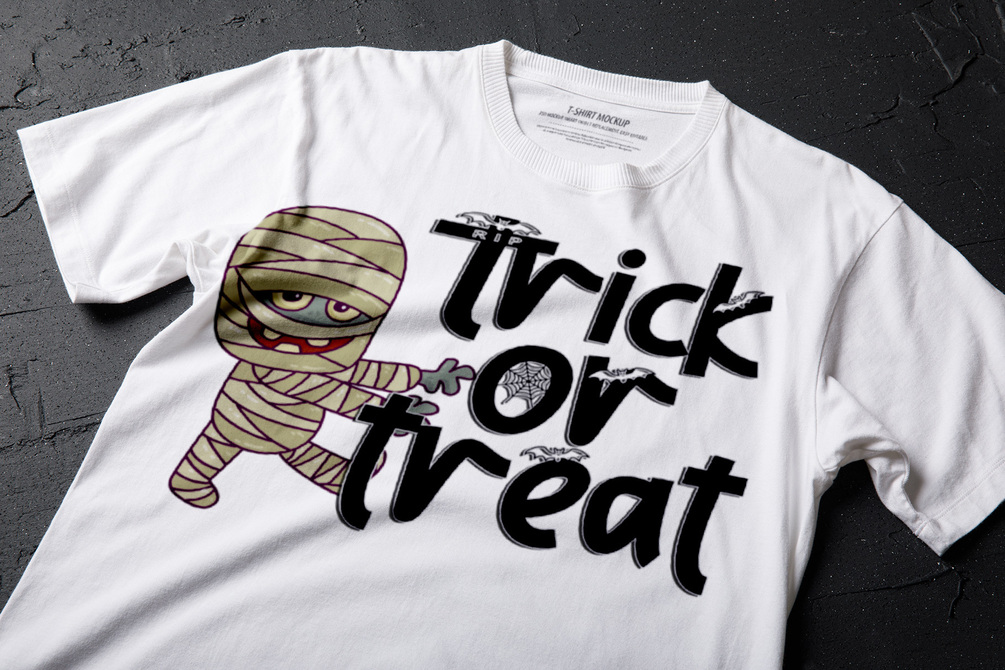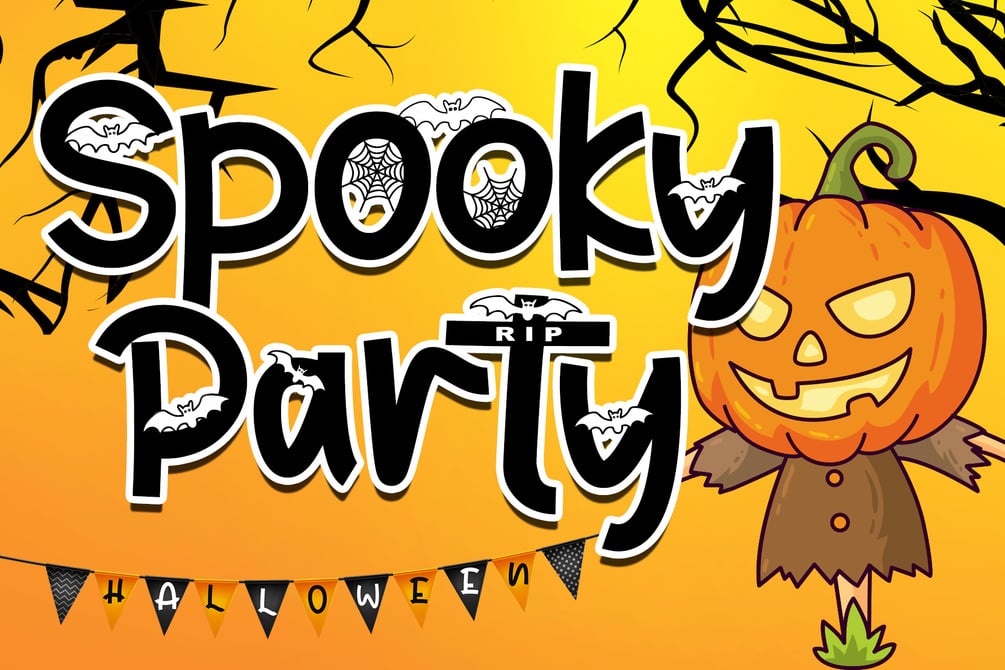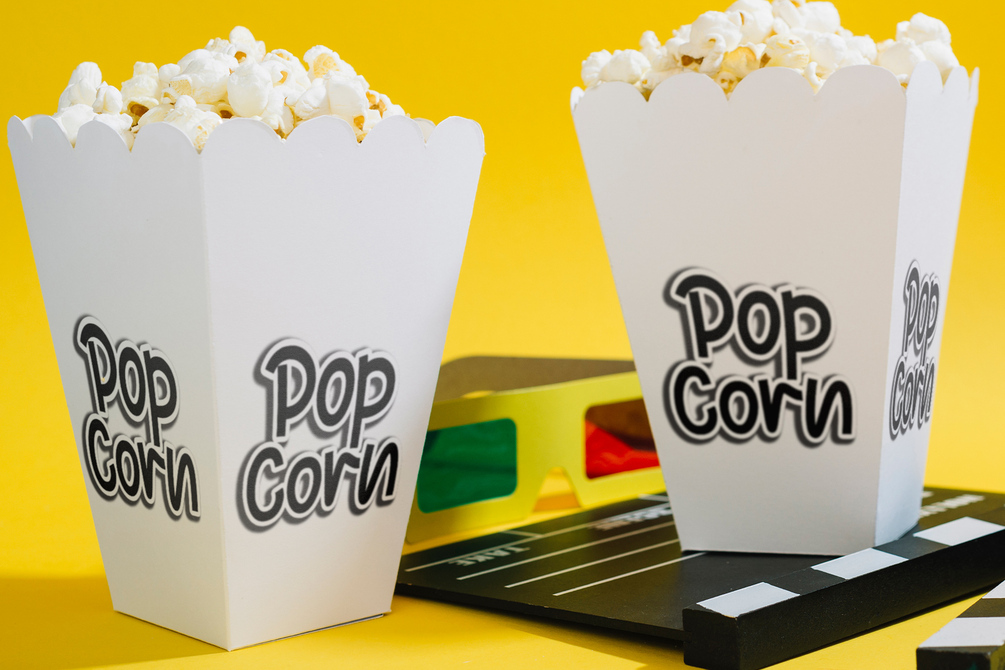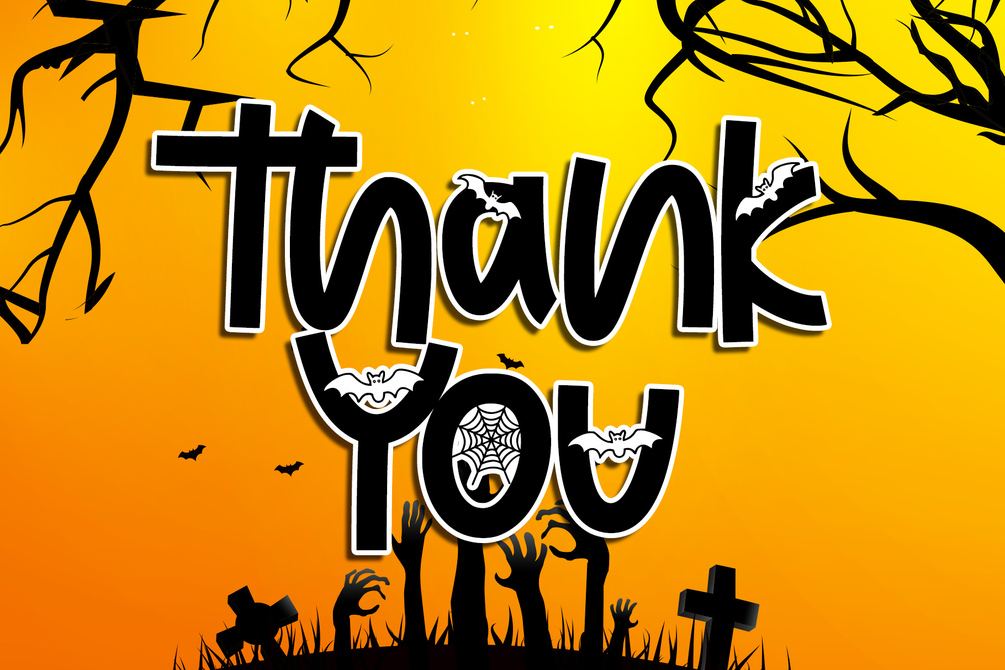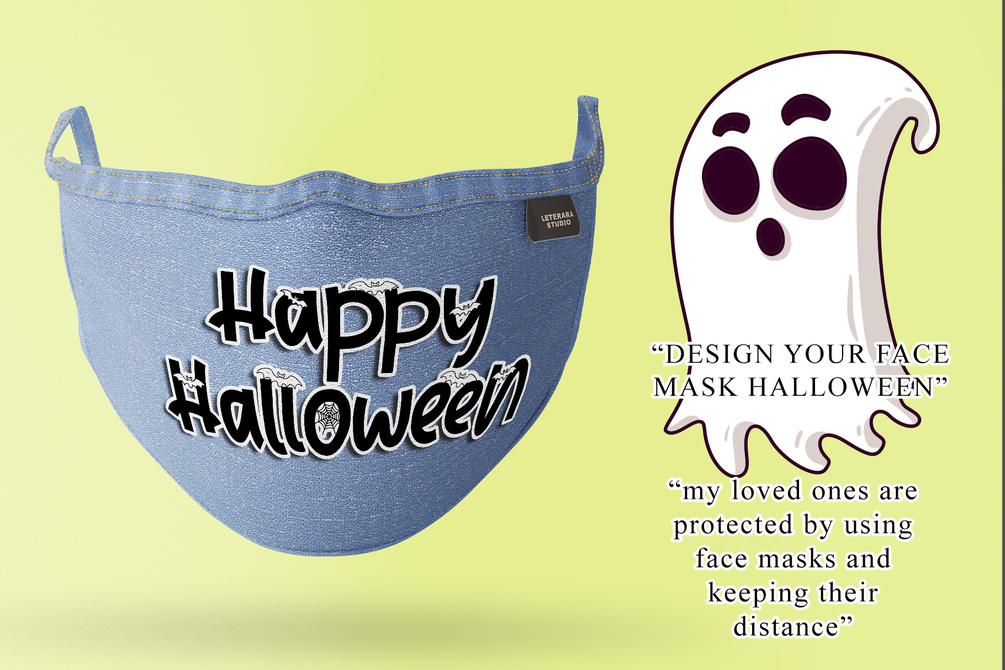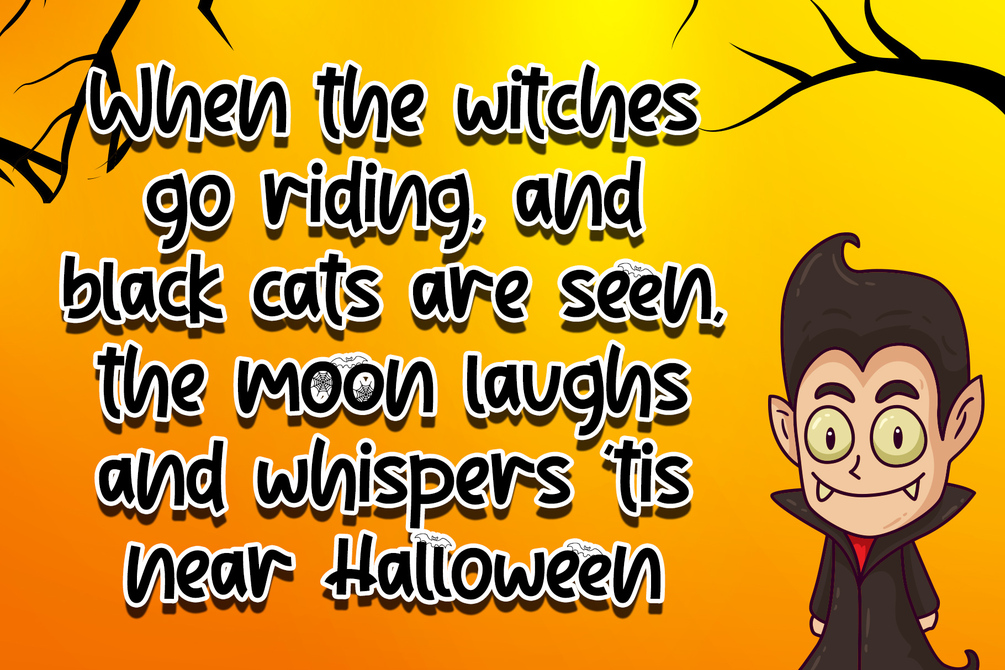
Spooky Party
Spooky Party is a unique and very unique display font. Add to your creative ideas and notice how they make them stand out! This will take all crafts to the next level! Spooky Feast is perfect for logos, quotes, posters, clothing, and any other design that requires a strong and unique touch. To stay up-to-date on my latest work, follow me and let's be friends because there will be many promos.